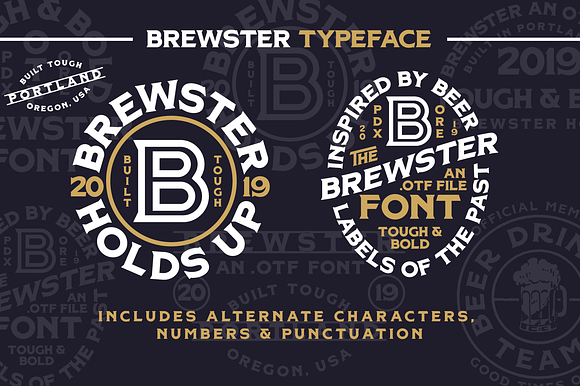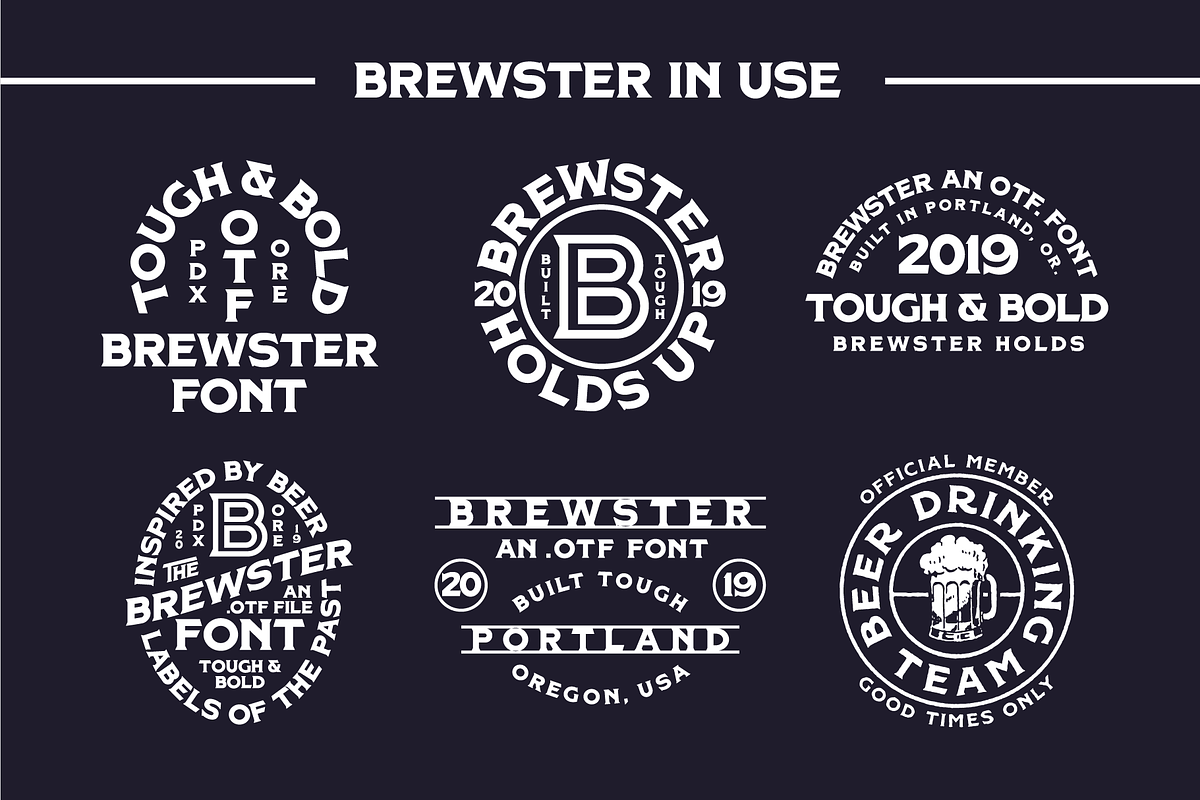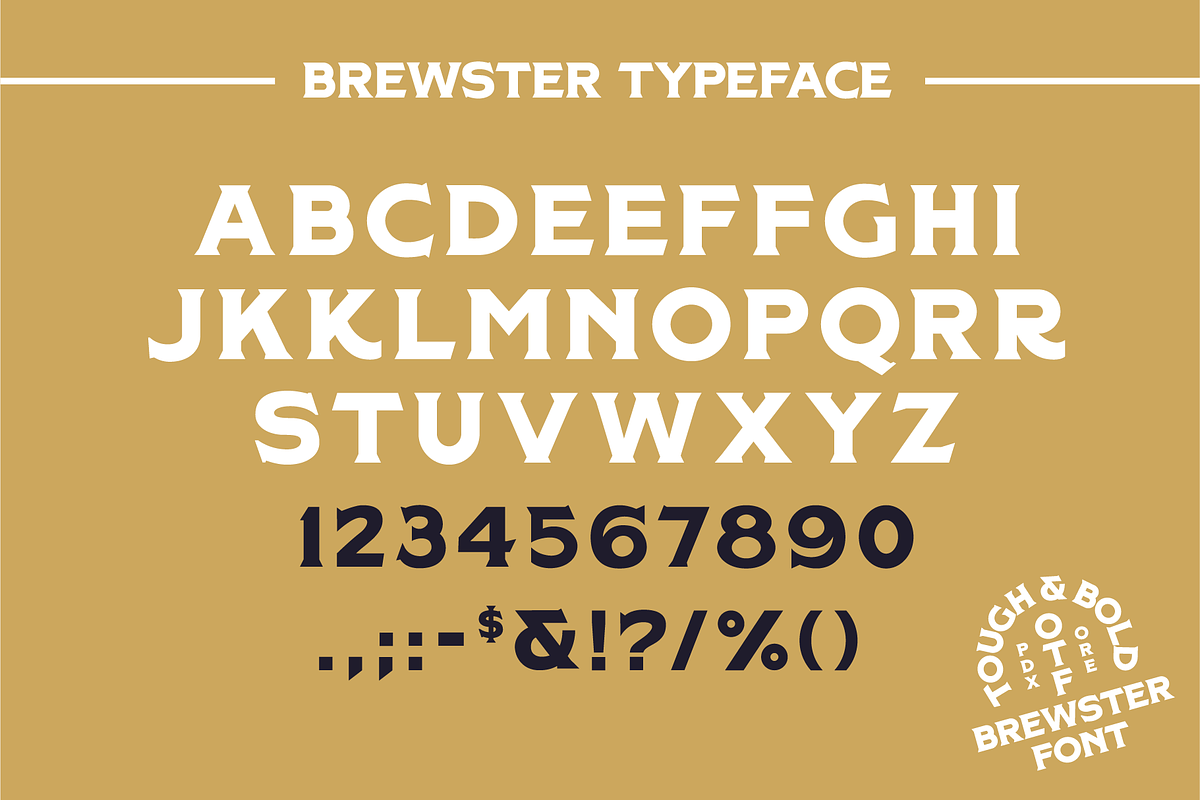
Brewster - Spurred Display Font
Brewster is a display typeface inspired by beer labels of the past. It’s tough, it’s bold, Brewster holds up and is ready to age like a rich stought. This font includes a few alternate characters to give you some options when laying your type. Check out the E,F,K, and R. Clean numbers for dates or number of fluid ounces! The essential punctuation, but a few extras for the beer stuff, oh and a sweet dollar sign!
- This font includes a few alternate characters to give you some options when laying your type.